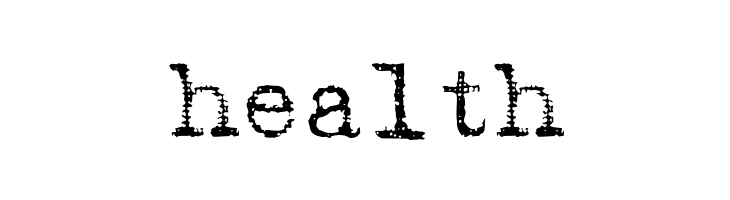
A whimsical, hand-drawn font with playful bird-themed characters.
A decorative font mimicking ancient petroglyphs and pictographs.
A vintage, typewriter-inspired font with monospaced, slightly irregular strokes.
A rugged, textured font with a splintered, hand-drawn aesthetic.
A playful, handwritten-style font with a childlike, whimsical appearance.
A playful, child-like handwritten font with uneven, lively characters.